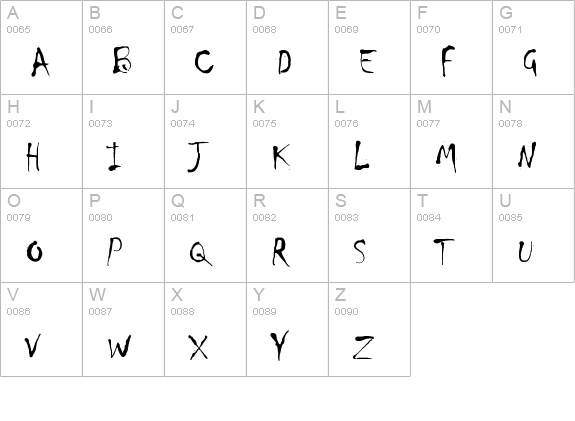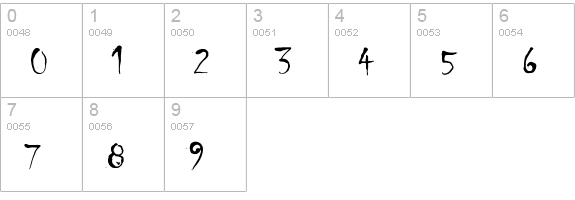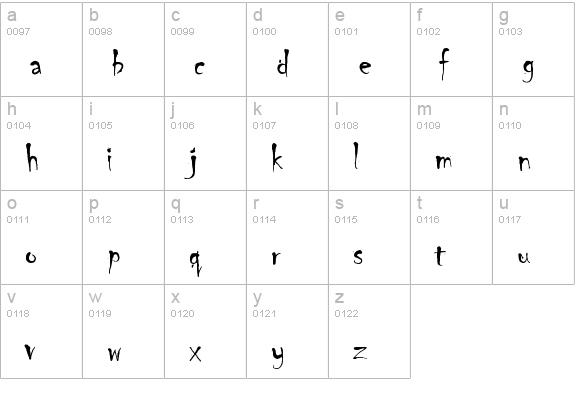
Chiller LET Plain:1.0 Font Details
Chiller LET Plain:1.0 font is a unique and eye-catching typeface that adds a touch of spookiness to any project. With its chilling and eerie appearance, this font is perfect for Halloween-themed designs, horror movie posters, or any project that requires a bold and edgy look. The best part about Chiller LET Plain:1.0 font is that it is completely free to download at FontsMarket.com. You can easily access this font and start using it in your projects right away, without having to worry about any costs. Whether you're a designer looking to add a creepy vibe to your work or just someone who loves experimenting with different fonts, Chiller LET Plain:1.0 font is a fantastic choice that won't break the bank. So why wait? Head over to FontsMarket.com now and get your hands on the Chiller LET Plain:1.0 font for free. Let your creativity run wild with this spooky and captivating typeface that is sure to make a statement in any design project.